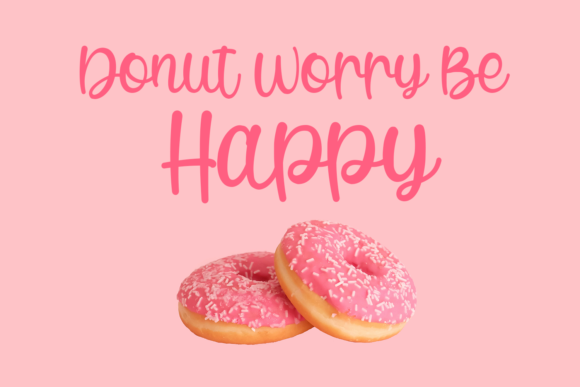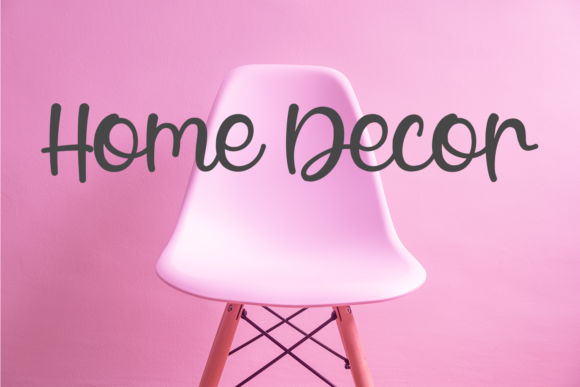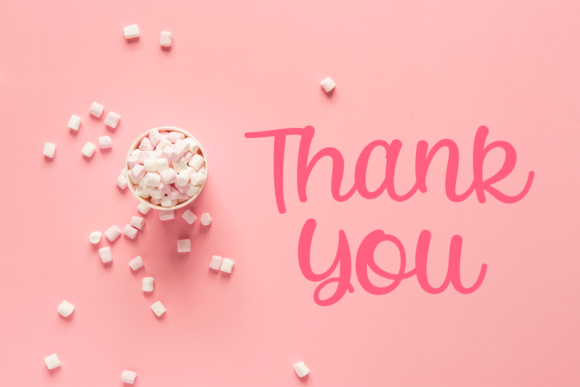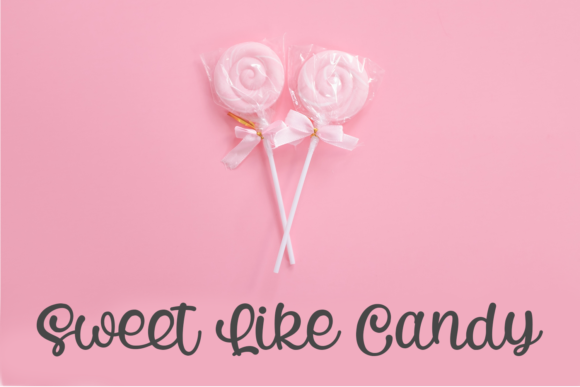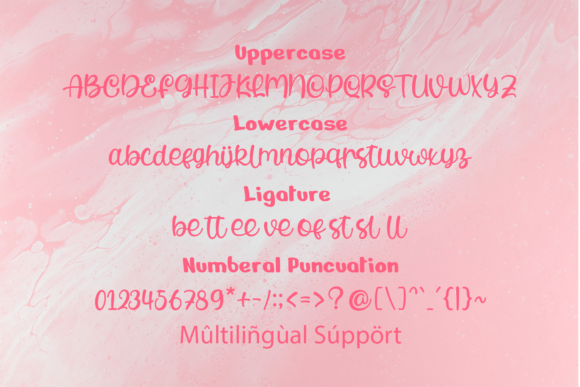
Cutties Font: The Ultimate Modern Display Font for Fashion Branding and Editorial Designs
In the world of typography, fonts play a crucial role in conveying the tone and personality of a brand or design. For designers and crafters, finding the perfect font that is both stylish and readable can be a daunting task. However, if you’re looking for a modern display font that checks all the right boxes, look no further than Cutties Font. In this article, we’ll dive into the features and benefits of Cutties Font, and explore why it’s the perfect addition to your design projects.
What is Cutties Font?
Cutties Font is a modern display font that is designed to make a statement. With its smooth curves and bold lines, it’s the perfect choice for fashion branding, editorial designs, and any project that requires a touch of sophistication. This font is not only stylish but also highly readable, making it versatile for use in a variety of contexts.
Key Features of Cutties Font
- Modern and Stylish: Cutties Font boasts a modern design that is both stylish and trendy. Its unique curves and lines make it stand out from other fonts, giving your designs a fresh and contemporary look.
- Highly Readable: Despite its bold and stylish appearance, Cutties Font is highly readable, even at smaller sizes. This makes it perfect for use in body text, headlines, and titles.
- Smooth Curves: The font’s smooth curves give it a soft and elegant feel, making it perfect for fashion branding and editorial designs.
- Versatile: Cutties Font can be used in a variety of contexts, from digital designs to print materials. Its versatility makes it a great addition to any designer’s font library.
Why Choose Cutties Font?
So, why should you choose Cutties Font for your design projects? Here are just a few reasons:
- Adds a Touch of Sophistication: Cutties Font adds a touch of sophistication to any design, making it perfect for high-end fashion brands, editorial designs, and luxury products.
- Stand Out from the Crowd: With its unique design and smooth curves, Cutties Font helps your designs stand out from the crowd. Whether you’re designing a logo, brochure, or website, this font is sure to make a statement.
How to Use Cutties Font in Your Designs
Using Cutties Font in your designs is easy. Here are a few tips to get you started:
- Pair it with Other Fonts: Cutties Font can be paired with other fonts to create a unique and stylish look. Try pairing it with a sans-serif font for a modern and edgy look.
- Use it for Headlines and Titles: Cutties Font is perfect for use in headlines and titles. Its bold and stylish design makes it perfect for grabbing attention and making a statement.
- Experiment with Different Sizes: Cutties Font can be used at a variety of sizes, from small to large. Experiment with different sizes to find the one that works best for your design.
In conclusion, Cutties Font is a modern display font that is perfect for fashion branding, editorial designs, and any project that requires a touch of sophistication. With its smooth curves, bold lines, and high readability, it’s the perfect addition to any designer’s font library. Whether you’re a seasoned designer or just starting out, Cutties Font is sure to impress. So why wait? Add Cutties Font to your projects today and see the difference it can make!
- Font Type: Modern Display Font
- Font Style: Bold, Stylish, Readable
- Best for: Fashion Branding, Editorial Designs, Luxury Products